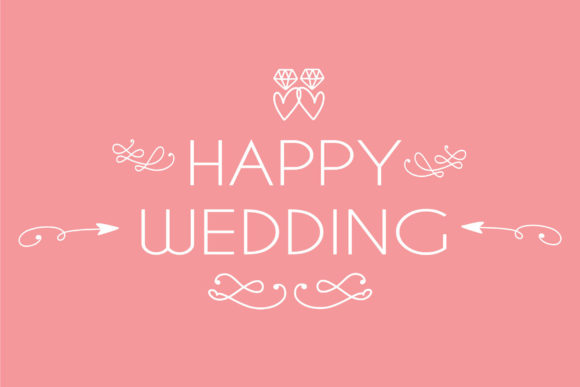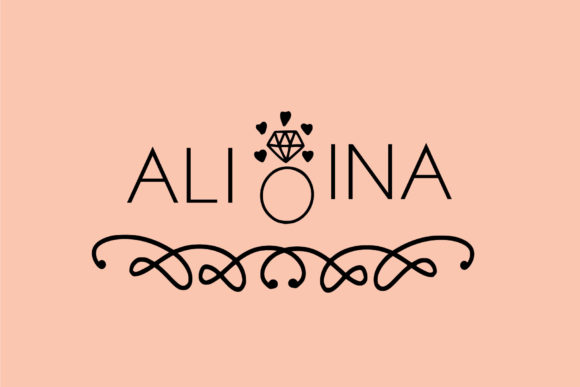
Introduction to Ornaments Cute Font
Have you ever found yourself stuck in a creative rut, scrolling through your design resources for the perfect element to elevate your project? I know I have. That’s when I stumbled upon the Ornaments Cute Font – a game-changing dingbats font that’s been a lifesaver for my creative projects.
This delightful font is more than just a pretty face; it’s a versatile design resource that can add a touch of whimsy to any project, from festive holiday designs to elegant wedding invitations. With its intricate details and high-quality design, it’s the perfect addition to any designer’s library.
Key Features of Ornaments Cute Font
- High-quality design resource with a playful and whimsical feel, perfect for creative projects.
- Includes a range of ornaments and decorations, ideal for adding a touch of personality to designs.
Honest Review: Ornaments Cute Font
I recently stumbled upon the Ornaments Cute Font, a design resource that caught my attention. This font is perfect for creative projects where a touch of whimsy is required. The Ornaments Cute Font is available for a free download, making it an attractive option for designers on a budget.
What works well: ✨ The font is extremely versatile and can be used for a variety of purposes, from wedding invitations to children’s party decorations. The transparent background feature allows for easy layering and customization. The high quality of the font ensures that it will print well and look great on screen.
What doesn’t work well: ⚠️ The font is not suitable for formal or corporate designs, as it may come across as too playful. Additionally, the font may not be suitable for small text sizes, as the details may get lost.
Overall, I’m impressed with the Ornaments Cute Font. It’s a great resource for designers who want to add a touch of creativity to their projects. With its high quality and transparent background, it’s a must-have for any design arsenal.
Ornaments Cute Font is a versatile design resource that can elevate your creative project with its high-quality and adorable ornaments. With a transparent background, you can easily integrate it into your design without any distractions.
Ornaments Cute Font is perfect for:
1. Holiday cards and gift tags.
2. Children’s party invitations and decorations.
3. Digital scrapbooking and photo editing.